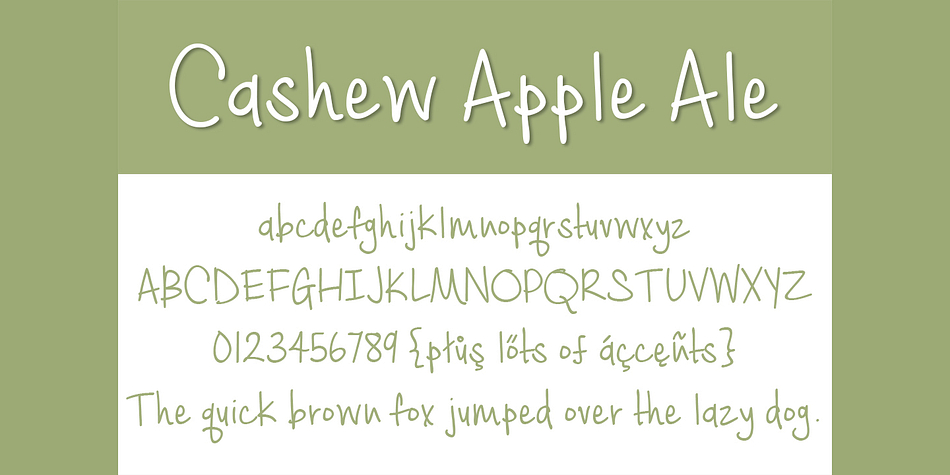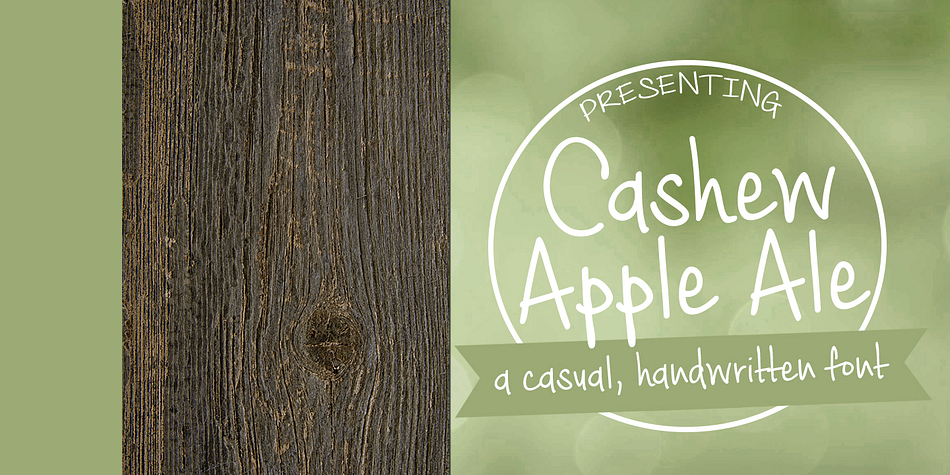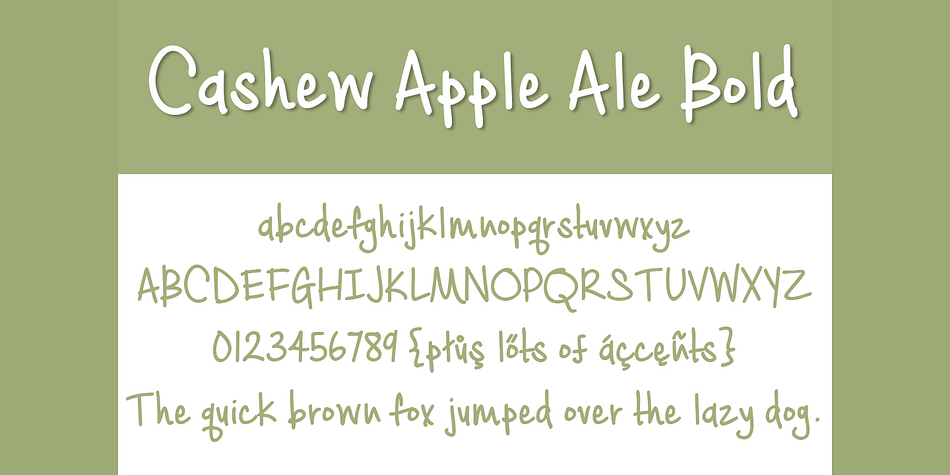
Cashew Apple Ale is a hand drawn font family. This typeface has two styles and was published by Brittney Murphy Design.
Cashew Apple Ale comes in two weights- regular and bold. It’s a casual, handwritten font. Pretty, but legible! Great for both headlines or content.